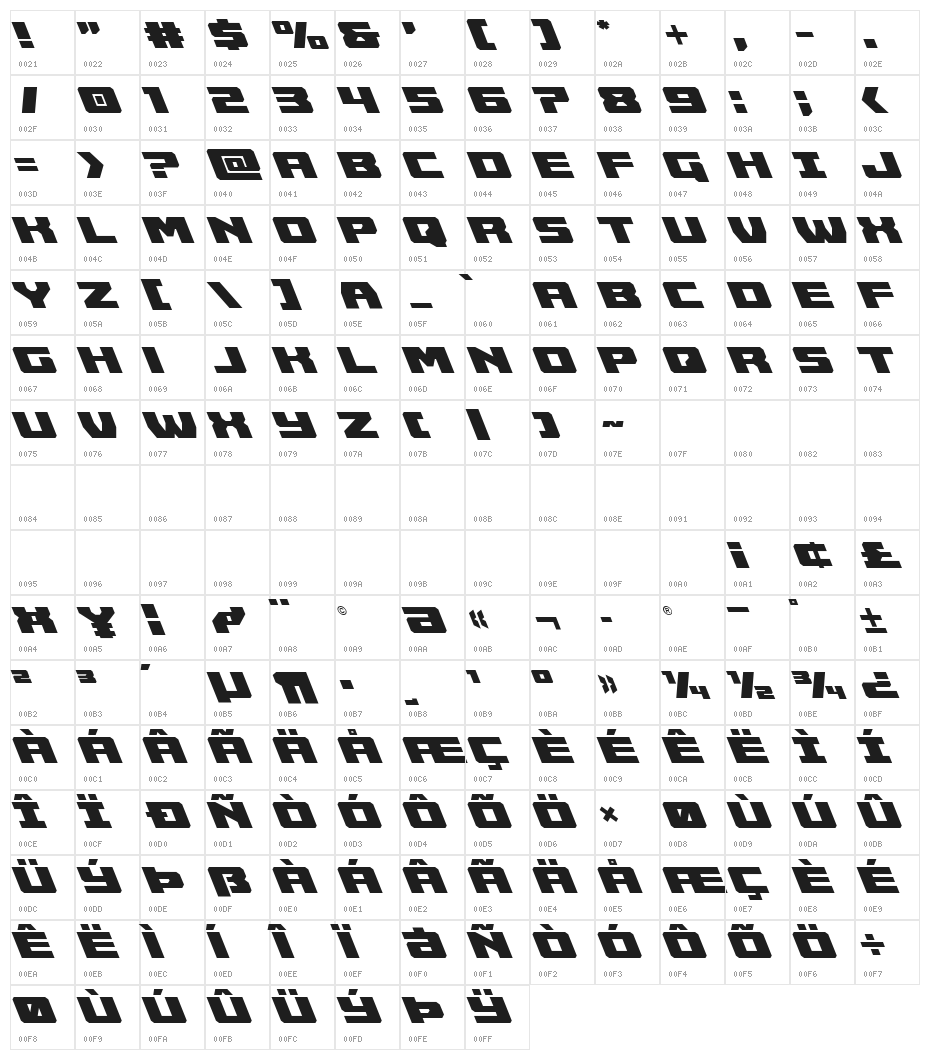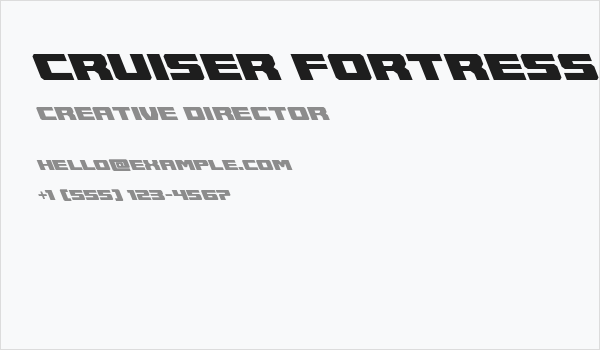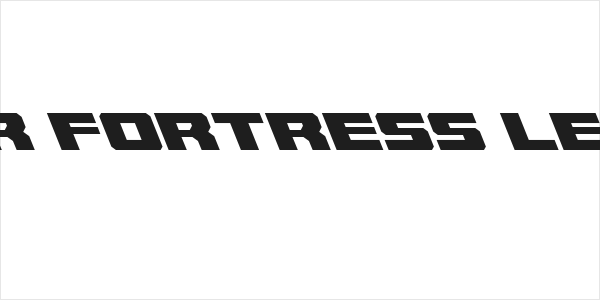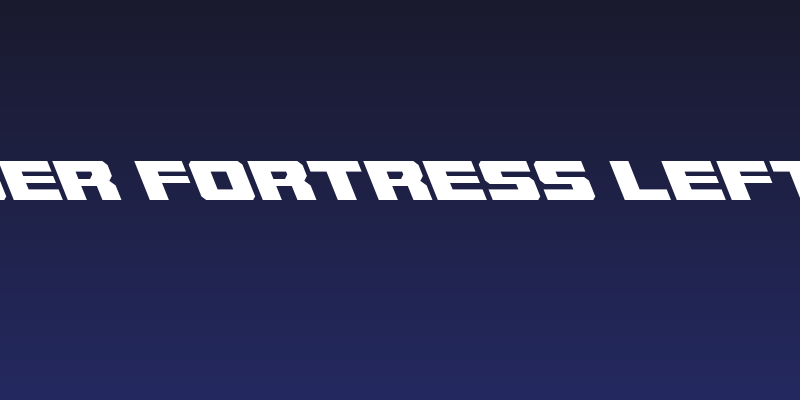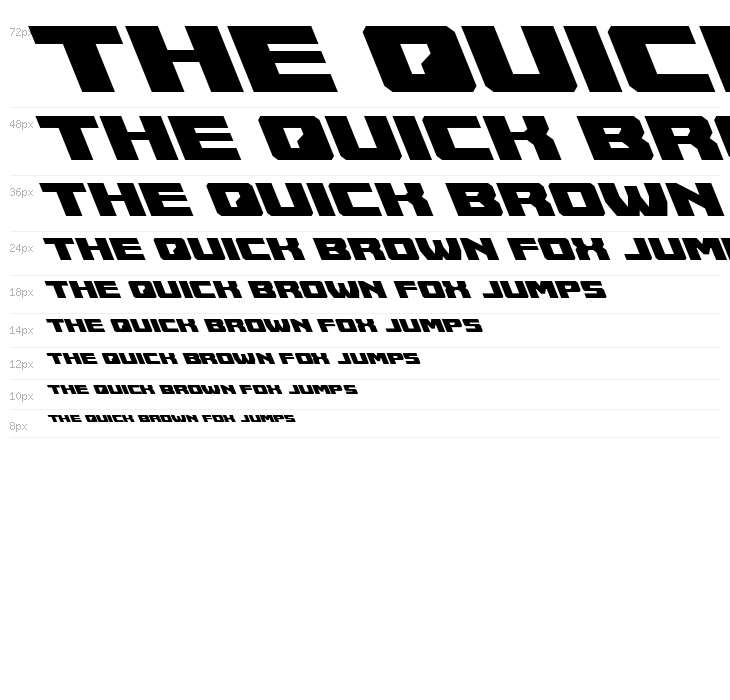
Cruiser Fortress Leftalic Font
Cruiser Fortress Leftalic Description
This font features a bold, angular design with a strong geometric influence. The characters are wide and blocky, giving a sense of strength and stability. The edges are sharp, and the overall appearance is aggressive and futuristic. The uppercase and lowercase letters maintain a consistent style, with the lowercase being slightly smaller but equally bold. Numbers and special characters follow the same design principles, ensuring uniformity across all elements. The font's style is reminiscent of military or industrial themes, making it suitable for projects that require a commanding presence.
| Proposed Projects | Ideal for video game titles, movie posters, branding for tech companies, or any project needing a strong, futuristic look. |